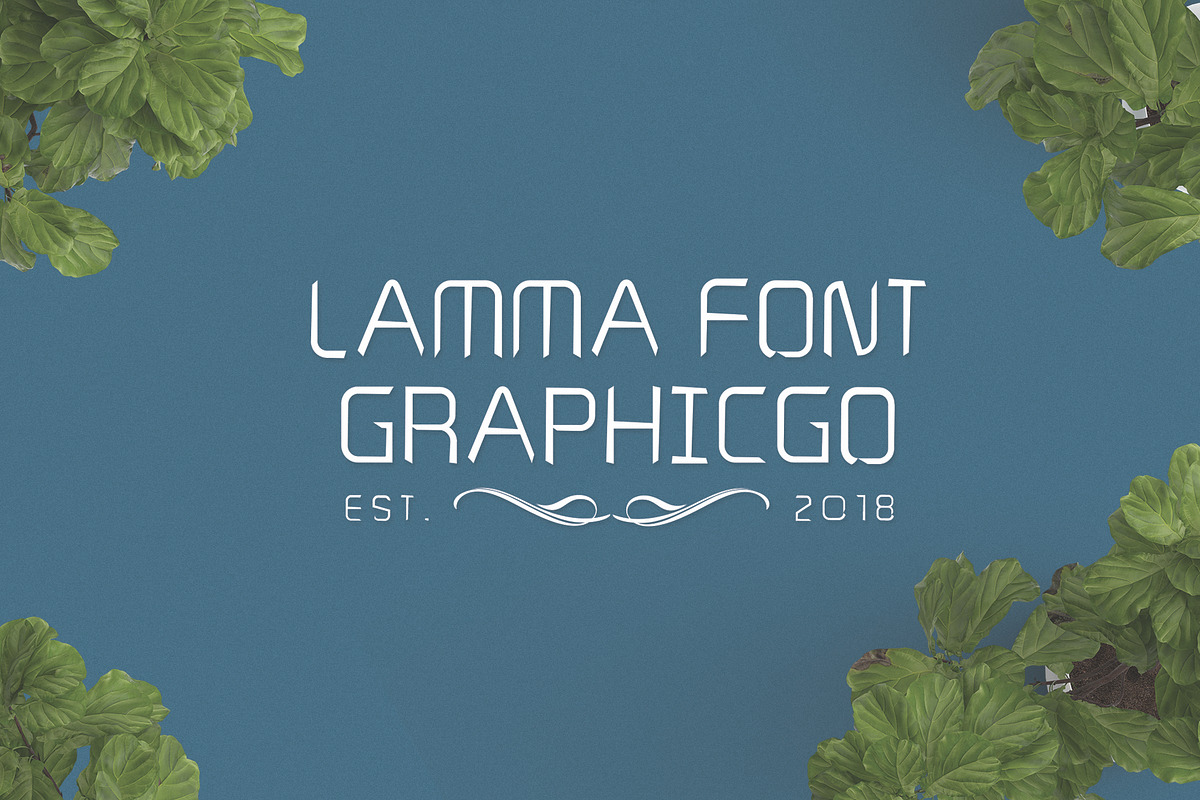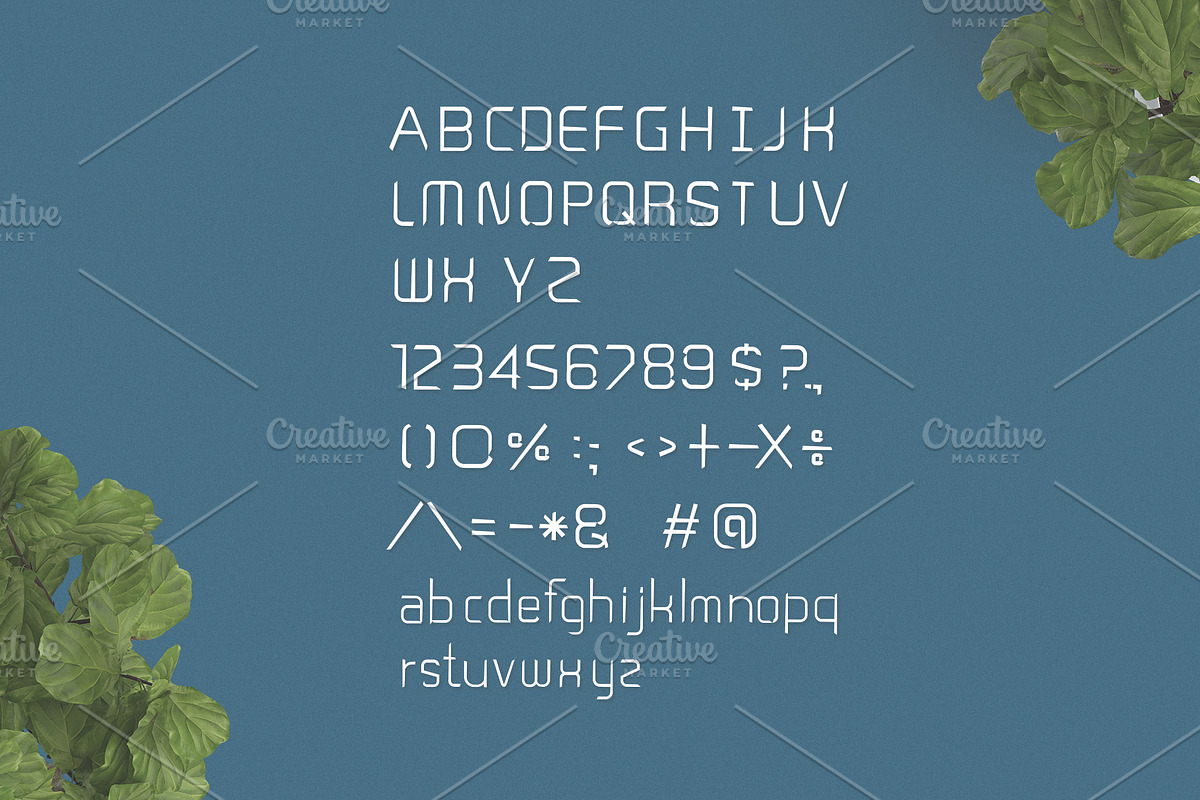
Lamma Font
Lamma Font is clean brush writing style. It 's perfect for organic products, cards, posters, wall art, branding, diy projects, greeting cards, labels, quotes, packaging, websites and much more.